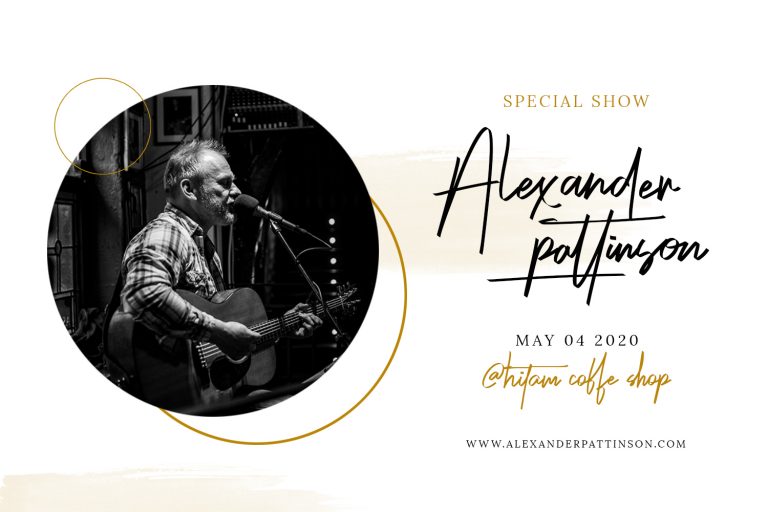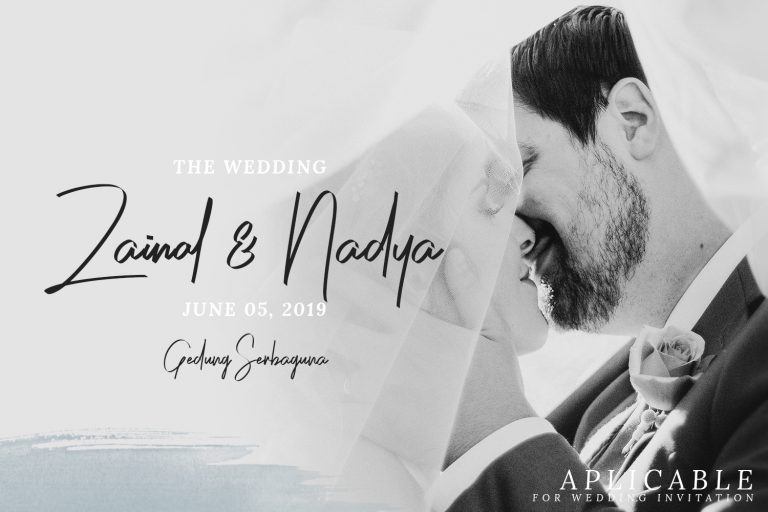
Risotto Font
Great food deserves great storytelling — and great storytelling starts with the right typographic voice. Risotto Font brings warmth, character, and an unmistakable sense of culinary passion to food brand design, restaurant identity, and gastronomic content creation with a casual handwritten personality that feels as comfortable and satisfying as a perfectly prepared home-cooked meal.
Risotto’s typographic character draws from the rich tradition of Italian handwriting — expressive, confident, and full of personality without ever being difficult to read. The letterforms have a natural, free-flowing quality that suggests the hand of an experienced chef writing a personal recipe, or a restaurant owner scrawling the day’s specials on a chalkboard with genuine enthusiasm. The stroke variation is organic and appealing, with a warmth that invites the reader into a world of good food, good company, and the kind of simple pleasures that fine casual dining is built on.
Italian restaurants, trattorias, and pasta brands find Risotto an immediately resonant typographic choice for menus, packaging, and brand identity that communicates authentic culinary heritage. Food bloggers and recipe content creators building personal brands around their love of cooking use Risotto for blog headers, social media graphics, and cookbook layouts that convey genuine culinary brand personality. Gourmet product labels — artisan pasta, specialty sauces, premium olive oils, imported cheeses — benefit enormously from Risotto’s ability to communicate the personal craftsmanship behind quality food products.
Casual dining restaurants, farm-to-table concepts, food market vendors, and culinary event promoters across any cuisine tradition find Risotto adapts beautifully to their specific food culture while maintaining its core quality of authentic warmth.